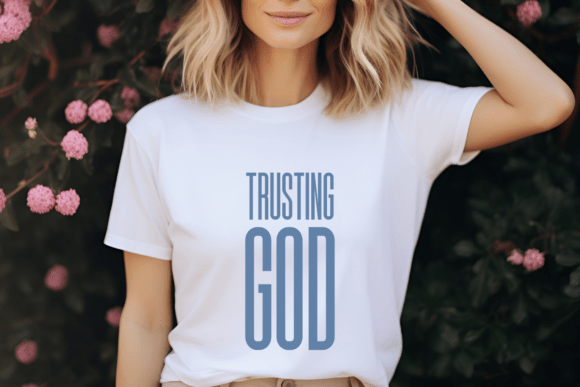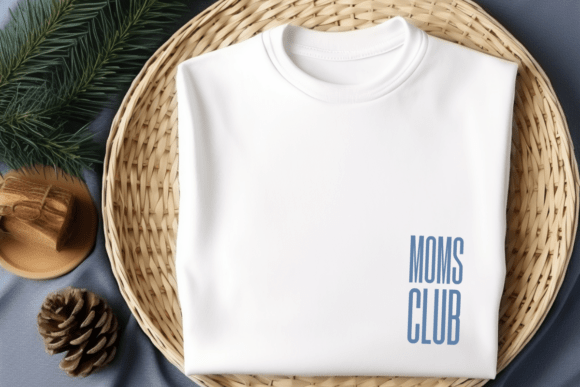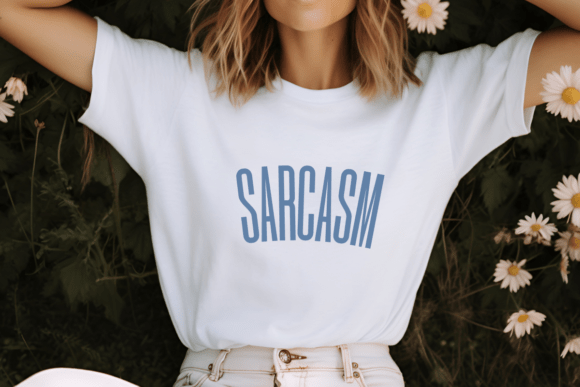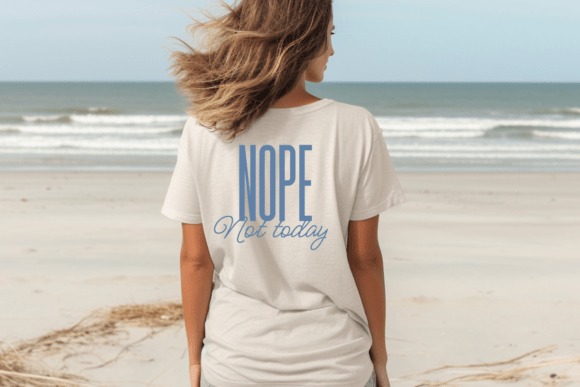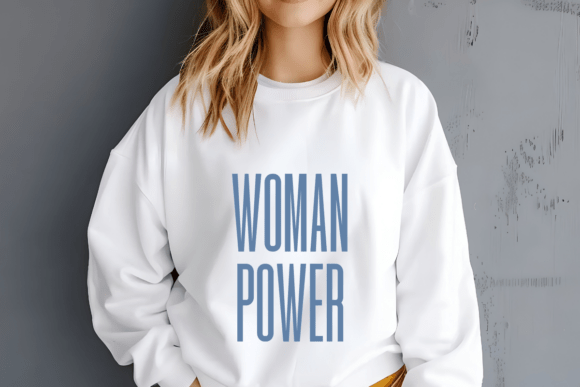
Introducing Godplan Font: The Ultimate Choice for Bold and Impactful Typography
In the world of typography, a font can make all the difference in conveying a message effectively. For designers and crafters looking for a bold and commanding font that can help their message stand out, Godplan Font is an excellent choice. This condensed sans serif font is specifically designed for those who want to create high-impact typography that exudes strength, modern authority, and a clean architectural feel.
Key Features of Godplan Font
Godplan Font boasts a tall, compact structure and solid visual weight, making it perfect for creating typography that demands attention. Its thick strokes and narrow profile allow it to thrive in limited spaces, making it an ideal choice for a variety of design projects. Here are some of the key features that make Godplan Font a must-have for designers and crafters:
- Bold and commanding design: Godplan Font is designed to make a statement. Its bold and commanding presence is perfect for creating high-impact typography that grabs attention.
- Condensed sans serif font: The font’s condensed design makes it perfect for use in limited spaces, while its sans serif style gives it a clean and modern look.
- Thick strokes and narrow profile: The font’s thick strokes and narrow profile make it perfect for creating high-impact typography that stands out.
- Professional yet energetic presence: Godplan Font has a professional yet energetic presence, making it perfect for a variety of design projects, from bold headlines to social media graphics.
Perfect for Print On Demand (POD) Projects
Godplan Font is perfect for Print On Demand (POD) projects, particularly for designing t-shirts, gym apparel, and motivational posters. Its bold and commanding design makes it stand out beautifully on a variety of products, while its clean and modern look ensures that it will appeal to a wide range of audiences.
For designers and crafters who specialize in POD projects, Godplan Font is an excellent choice. Its ease of use and flexibility make it perfect for creating a wide range of designs, from simple typographic designs to more complex graphics.
Ideal for a Variety of Design Projects
Godplan Font is not just limited to POD projects. Its professional yet energetic presence makes it ideal for a variety of design projects, including:
- Bold headlines: Godplan Font is perfect for creating bold and attention-grabbing headlines that demand attention.
- Cinematic film titles: The font’s bold and commanding design makes it perfect for creating cinematic film titles that exude strength and modern authority.
- Sports branding: Godplan Font is an excellent choice for sports branding, particularly for teams and organizations that want to convey a sense of strength and energy.
- Social media graphics: The font’s clean and modern look makes it perfect for creating social media graphics that require a powerful visual identity.
In conclusion, Godplan Font is an excellent choice for designers and crafters who want to create bold and impactful typography. Its bold and commanding design, condensed sans serif style, and thick strokes and narrow profile make it perfect for a variety of design projects. Whether you are designing for an urban streetwear brand or a modern corporate project, Godplan Font delivers a sharp, contemporary edge that is sure to impress.